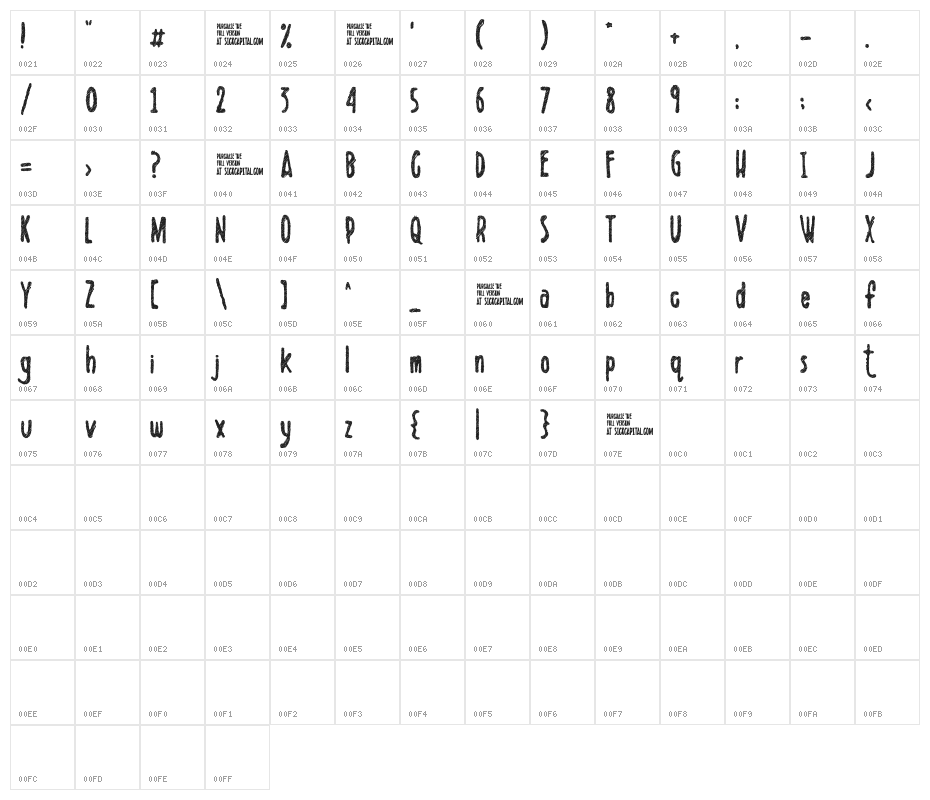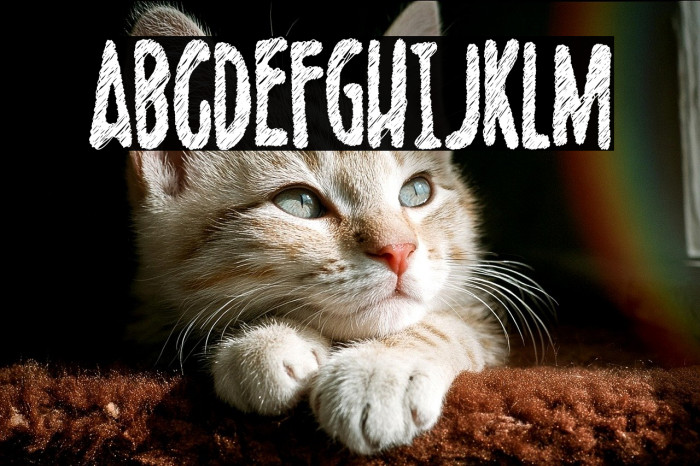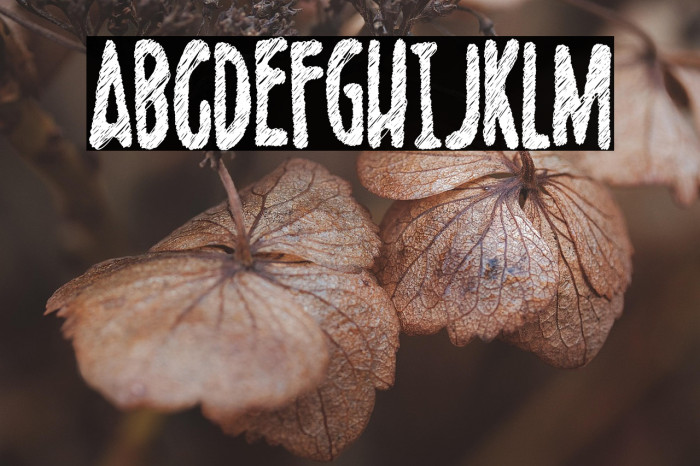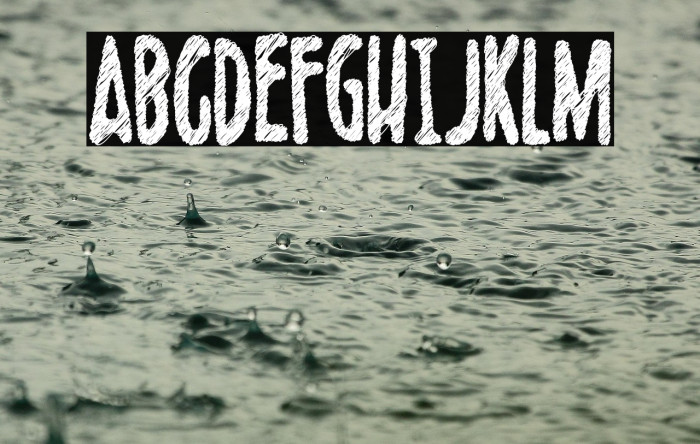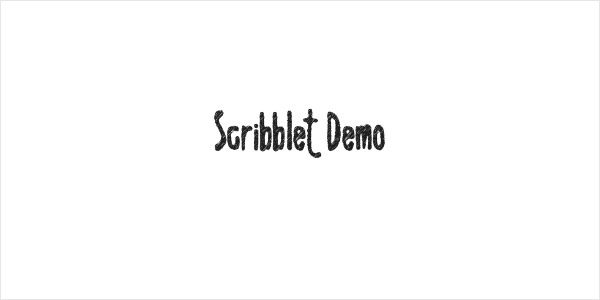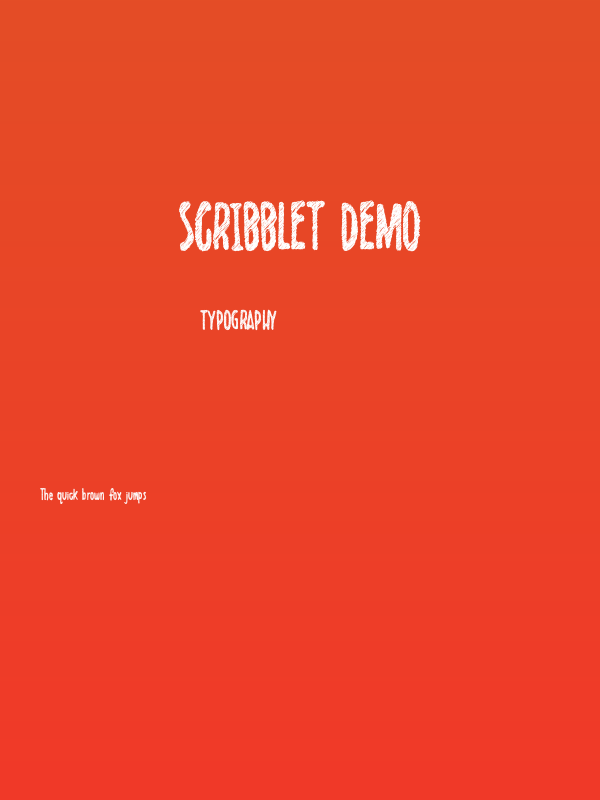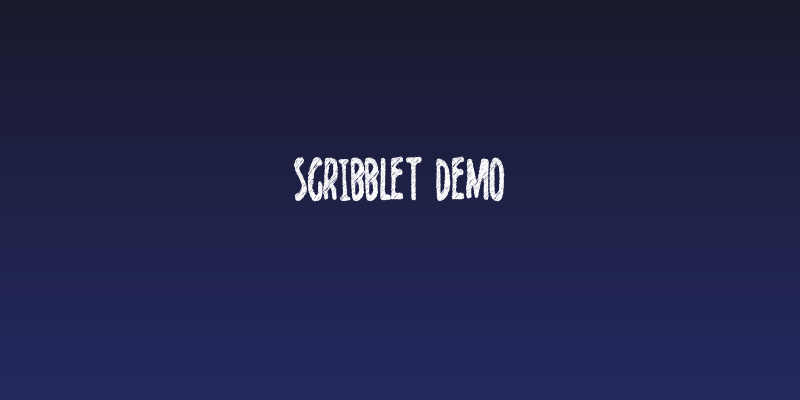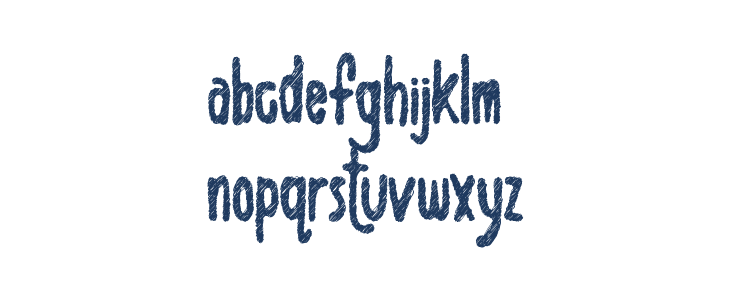
Scribblet Demo Font
Scribblet Demo Description
This font features a playful and textured style, reminiscent of hand-drawn scribbles. The characters have a rough, uneven texture that gives them a dynamic and energetic appearance. The uppercase and lowercase letters maintain a consistent style, with slightly exaggerated curves and angles that add to the whimsical feel. Numbers and special characters are designed with the same textured approach, ensuring a cohesive look across all elements. The font's unique style makes it stand out, offering a creative and informal vibe suitable for various artistic projects.
| Overall Style | Whimsical and Artistic |
| Use Case | Headlines, Artistic projects, Informal designs |
| Proposed Projects | Ideal for children's books, creative posters, informal invitations, and artistic branding. |